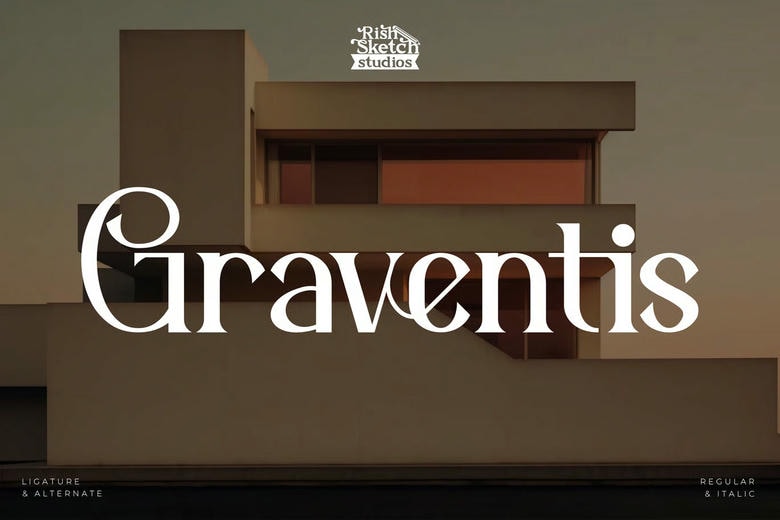
Graventis Font
Graventis Serif Font, from Rishsketch Studios, is a premium Modern Serif Font, This typeface is perfect for elegant logos, branding, travel promotions, layout magazines, beauty products, product packaging, quotes, or simply as a stylish text overlay onto any background image.
Graventis Serif Font